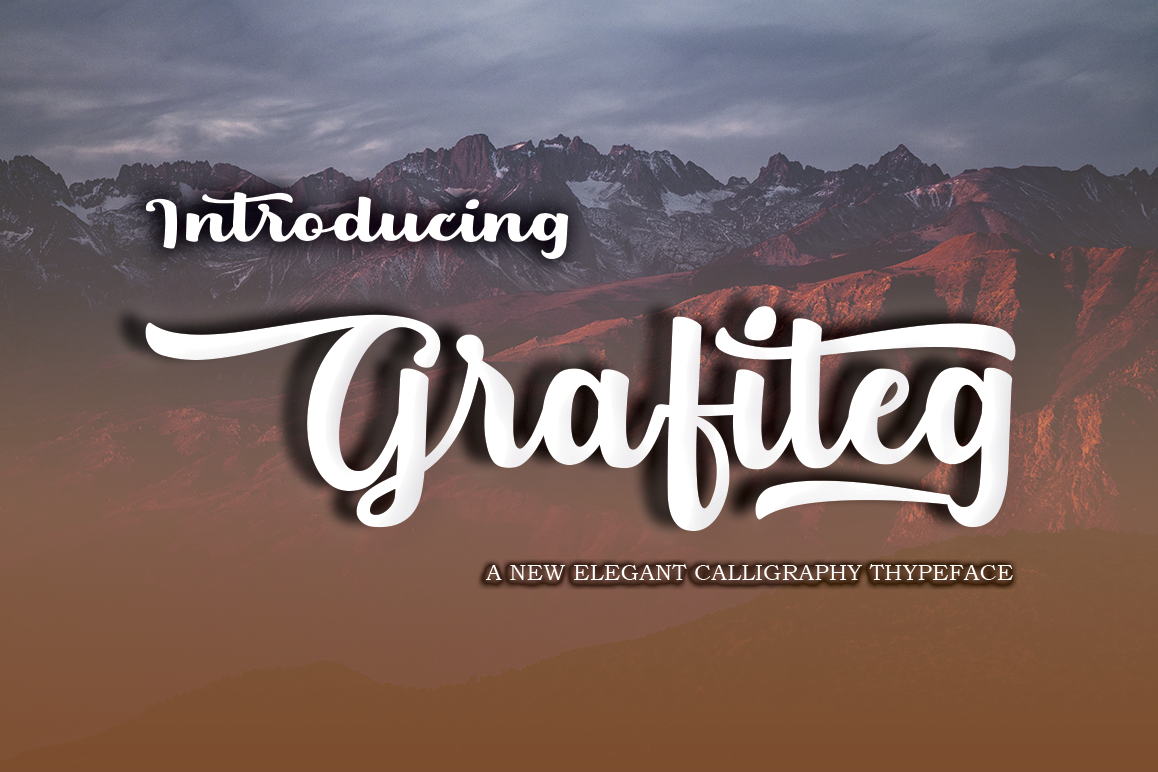
Grafiteg script
Grafiteg is a font bold, another lovely elegant calligraphy typefaces, which is combining the style of classic calligraphy with an elegant style. Combines from copperplate to contemporary typeface with a unique baseline, beautiful and elegant touch. Grafiteg features 458 glyphs and alternate characters Include . Including initial and terminal letters, alternates, ligatures and multiple language support.
The Features of this fonts is;
• Standart ligatures
• Discretionary ligatures
• Swash Alternates
• Stylistic sets
• PUA Unicode (Private Use Areas)